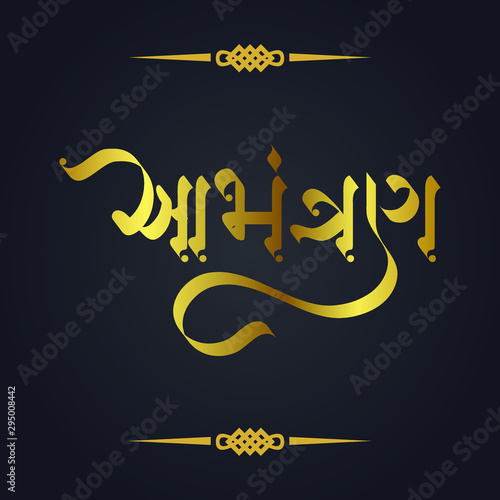
Gujarati calligraphy fonts free download. Some of the Most Popular Gujarati Unicode Fonts are Shruti Lohit Gujarati Padmaa etc. Gujarati Fonts You can download free Gujarati fonts from our fonts collection. Usable on web desktop and traditional media.
EliteWriterPro is a unique designing software for windows which allows user to create awesome calligraphic design in their favorite Designing Software. Its subtle appearance fashions a contemporary aesthetic whilst its construction lays deeply rooted in classical Gujarati calligraphy. The following tool will convert your text to images and you can use different Gujarati fonts colors text effects.